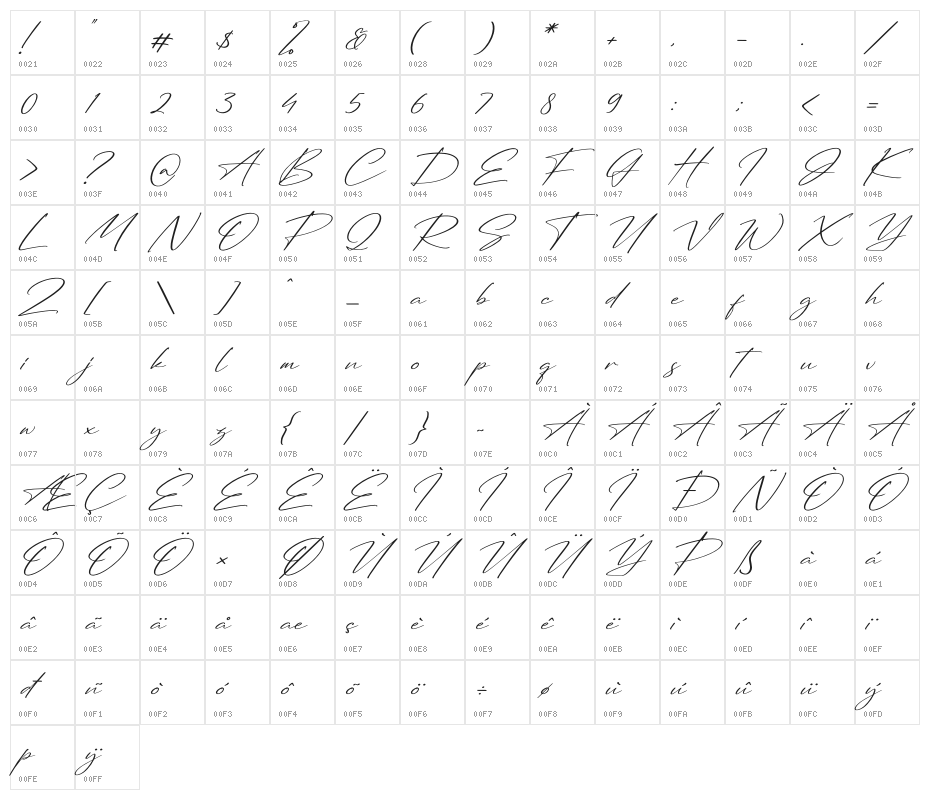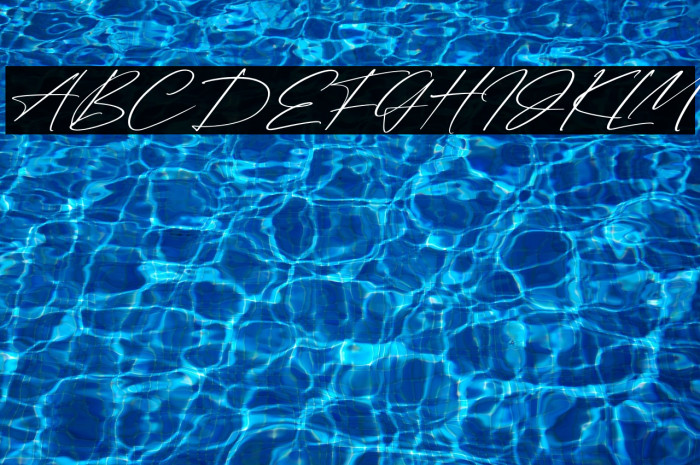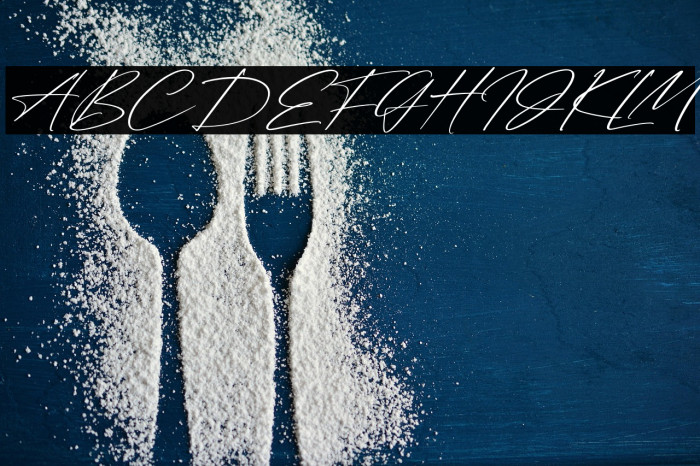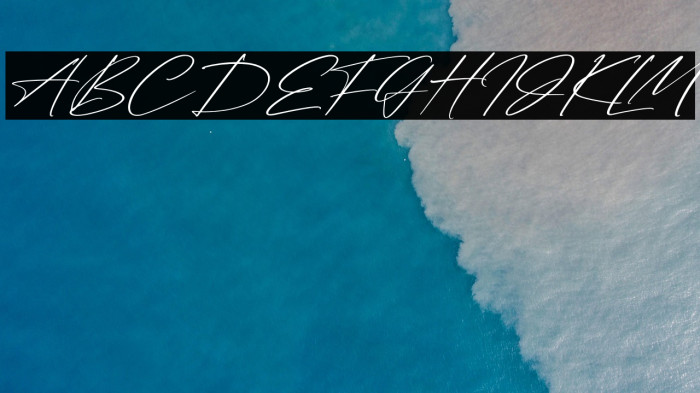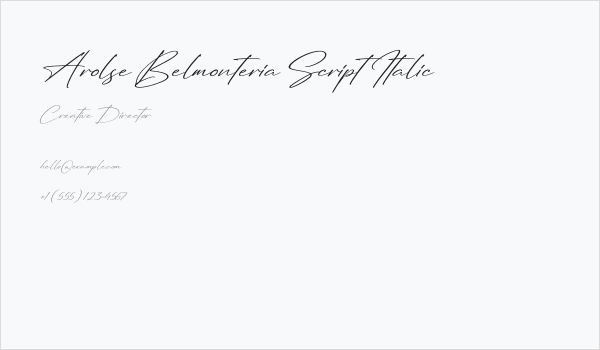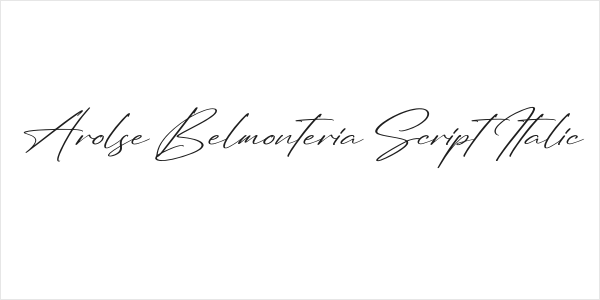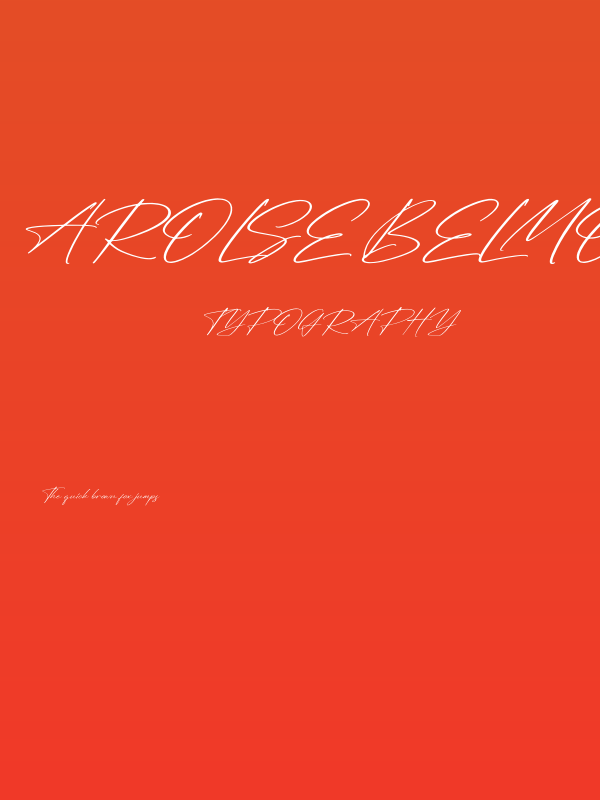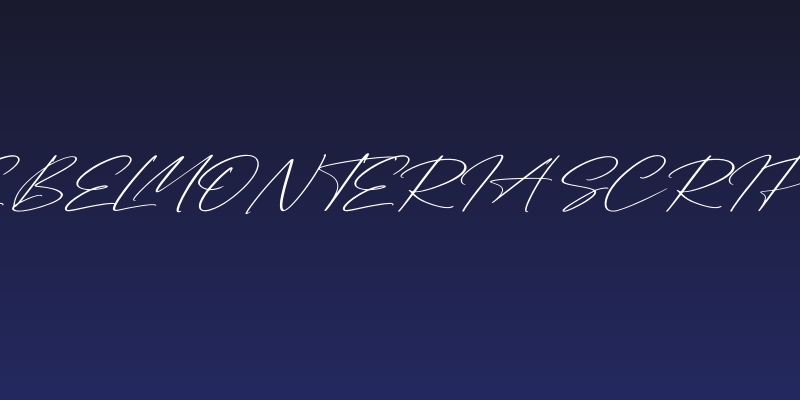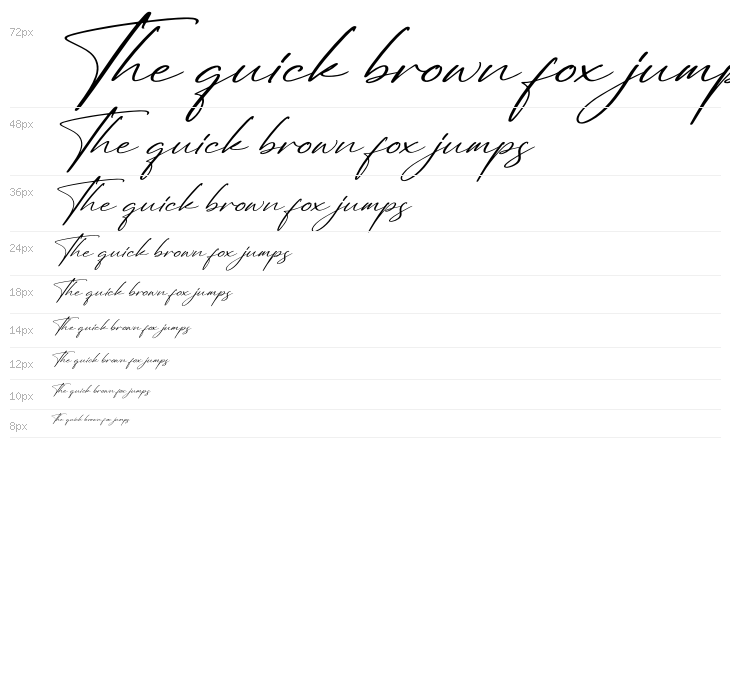
Arolse Belmonteria Script Italic Font
Arolse Belmonteria Script Italic Description
Elegant and flowing script font with a handwritten style, featuring smooth curves and a natural, cursive appearance.
| Use Case | Logos, Invitations, Greeting cards |
| Proposed Projects | Invitations, greeting cards, personal branding. |